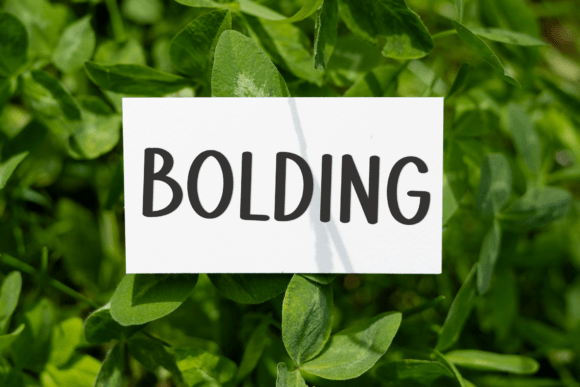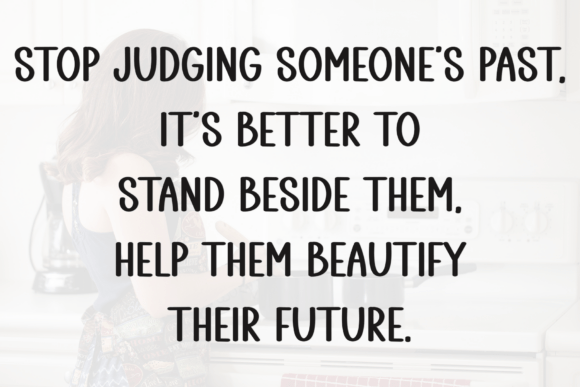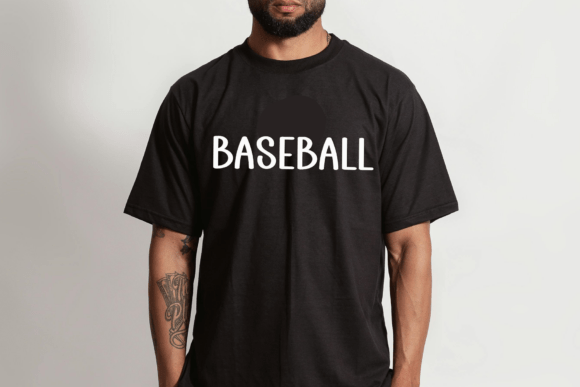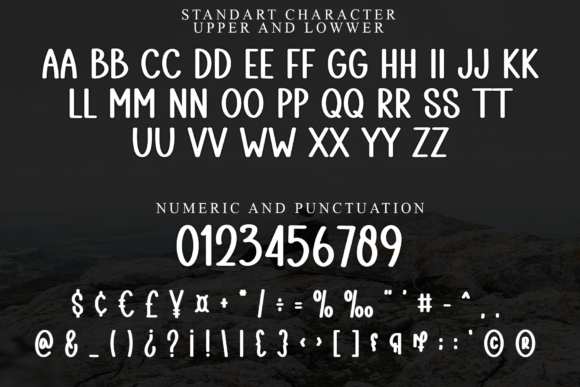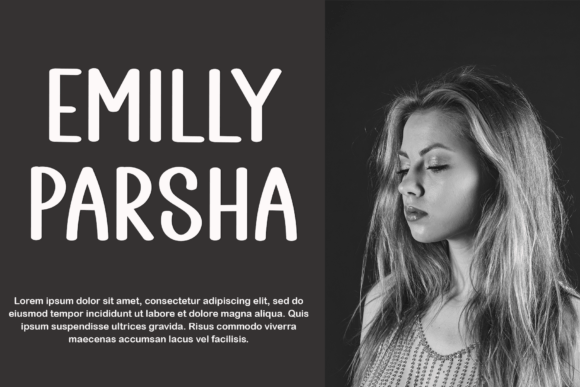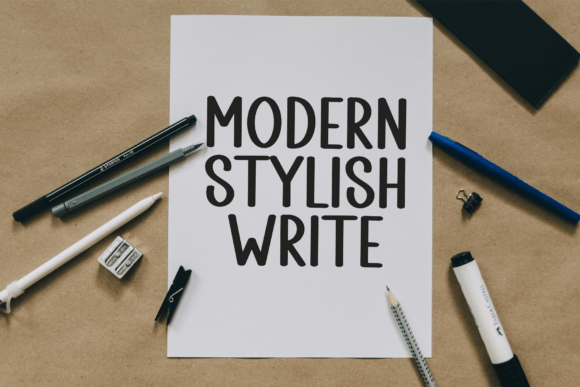
Introduction to Hours Party Font
Hours Party is a casual and creative font that exudes warmth and friendliness.
Key Features of Hours Party Font
Why Choose Hours Party Font?
Hours Party Font offers exceptional quality and versatility, making it a valuable addition to your design toolkit. Whether you’re creating for personal projects or commercial use, Hours Party Font delivers professional results.